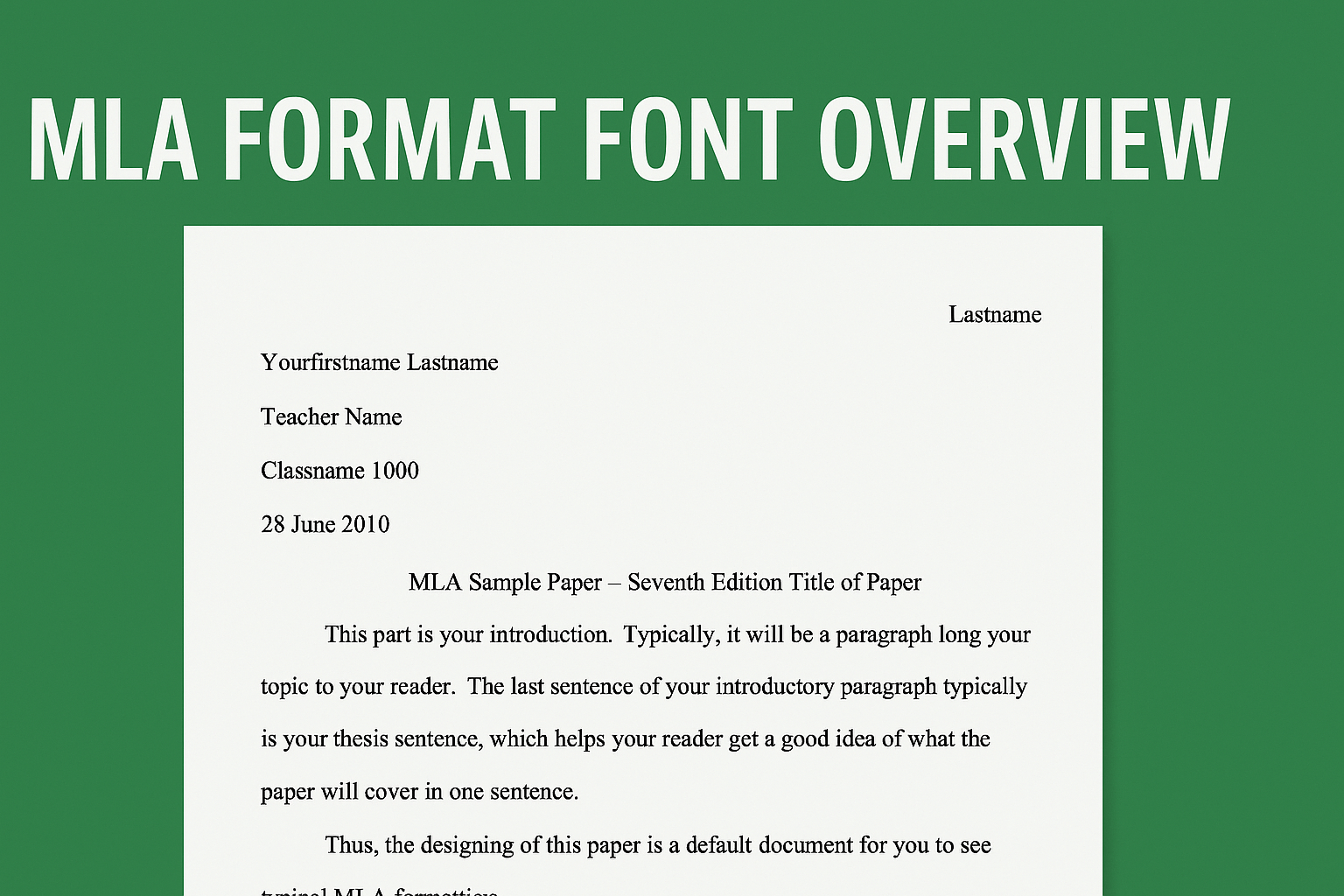
MLA Font Style: Following the MLA Style Font Guidelines in WPS Office
When writing a research paper, every detail matters, and that includes the font. MLA format sets strict guidelines for fonts to ensure clarity and professionalism. However, many users struggle with selecting the right font and applying it correctly in different writing tools. If you’re unsure about the MLA font standards or how to adjust them properly, don’t worry. This guide will explain the rules and show you how to format your document effortlessly using WPS Office.
Part 1: MLA Format Font Overview
Choosing the right font for your academic paper might seem like a small detail, but it can have a big impact on how your work is perceived. The MLA format font guidelines ensure that every paper meets the same readability and professionalism standards.
MLA Format Font Overview
So, what font is MLA format? According to the MLA Handbook, writers should use a readable serif typeface such as Times New Roman. Serif fonts are preferred because the small strokes at the ends of the letters make the text easier to read in print and digital formats. Other acceptable serif fonts include Garamond and Georgia, but Times New Roman remains the most widely recommended.
When it comes to size, the MLA format requires a 12-point font. This size strikes a balance between readability and professionalism. Larger or smaller fonts can make the paper look uneven or unprofessional, so it’s essential to stick with this standard.
MLA format example
Here’s a quick summary of the MLA font rules:
• Typeface: Use a readable serif font (e.g., Times New Roman).
• Font Size: 12-point is the minimum and standard size.
• Uniformity: The entire essay must be in the same font, from the title to the body text to the Works Cited page.
• Font Styles: Italics should be used sparingly and only where MLA guidelines require (such as for book titles). Bold, underlining, and other font styles are generally discouraged unless specified.
Maintaining these standards ensures that your paper will meet MLA expectations. Even small details like font choice can demonstrate your attention to academic rigor. As someone who has formatted countless papers, I find that following these simple font rules eliminates a lot of last-minute corrections when submitting a final draft.
Part 2: How to Set MLA Font Format in WPS Office
I’ve personally used WPS Office to format countless research papers. Its simplicity, combined with robust academic tools, saves me hours that I’d otherwise spend fine-tuning documents. For anyone serious about meeting MLA guidelines without unnecessary stress, the WPS Office is an ideal companion.
Step-by-step Guide: How to Set MLA Font in WPS Office
Now, let’s walk through how to set up your MLA format font and size in WPS Office.
• Step 1: Open WPS Office
Launch the WPS Office suite and open a new document in WPS Writer.
• Step 2: Select the Text
Highlight the text you want to format or select all text by pressing Ctrl + A.
• Step 3: Choose the Font
Go to the toolbar at the top. From the font dropdown, select Times New Roman or another recommended serif font.
Choose Times New Roman as the font
• Step 4: Set the Font Size
Next to the font name, adjust the font size to 12-point, the standard required by MLA.